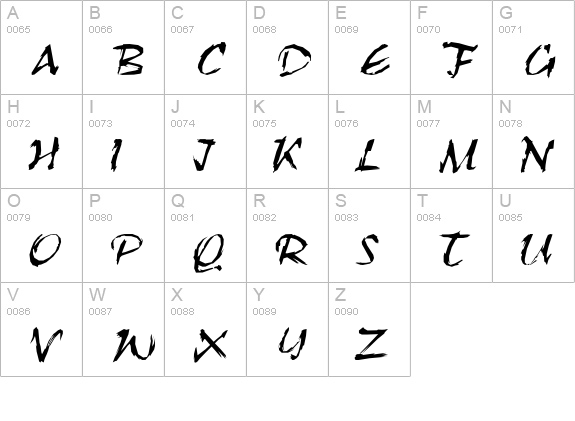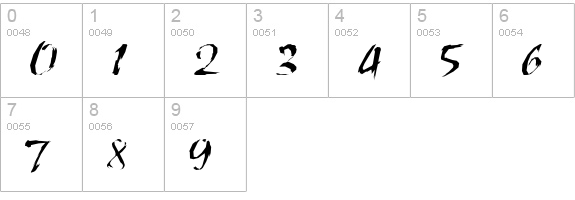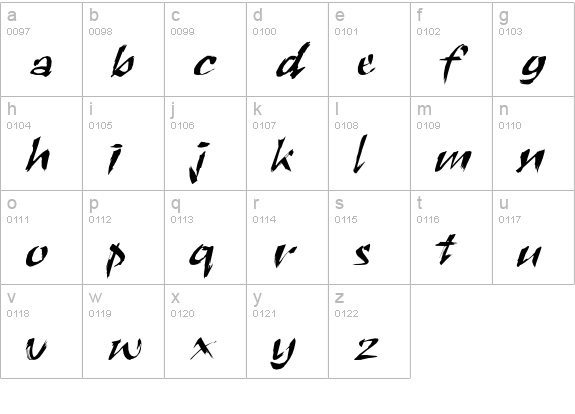
RoughBrush Normal is the standard, neutral variant in the RoughBrush typeface family \xE2\x80\x94 well suited to general body text, paragraphs, and standard typographic work.
RoughBrush Normal font is a bold and expressive typeface that exudes a sense of energy and creativity. With its rough brush strokes and unique character design, this font is perfect for adding a touch of personality to your projects. Whether you're designing posters, logos, or social media graphics, RoughBrush Normal will make your text stand out. What's even better is that RoughBrush Normal font is available for free download at FontsMarket.com. This means you can easily access this eye-catching font and incorporate it into your designs without any cost. Don't miss out on the opportunity to enhance your creative work with the captivating style of RoughBrush Normal font. Download it now and let your imagination run wild!